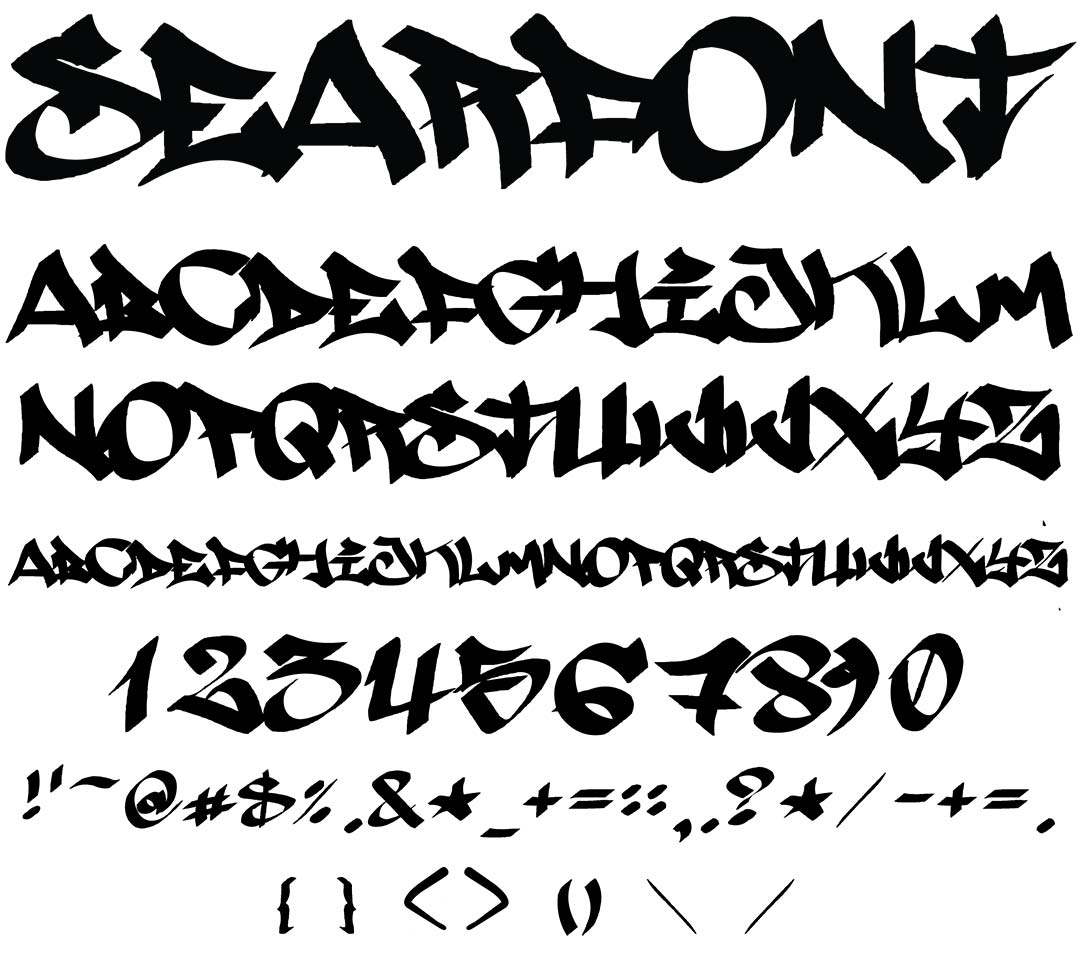
SearFont
SearFont Graffiti Alphabet
SearFont Graffiti Font Family
Sear Font was created around 2001 & is one of the earlier graffiti style fonts. The Stylish, handwritten letters are realistic & legible as written with a chisel tip marker. When this font was created it was one of very few authentic graffiti fonts.